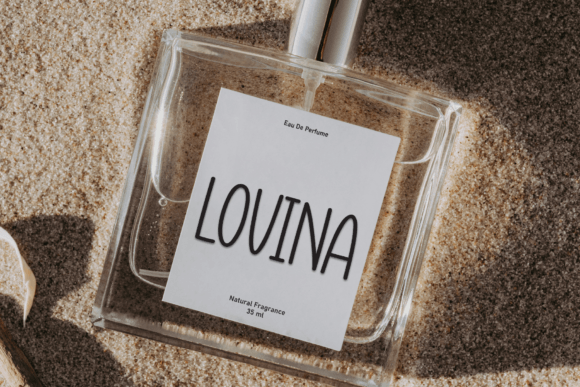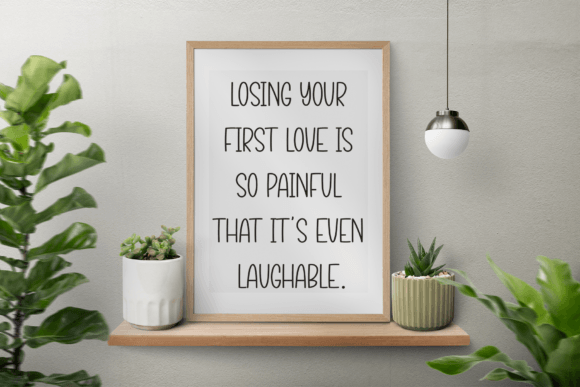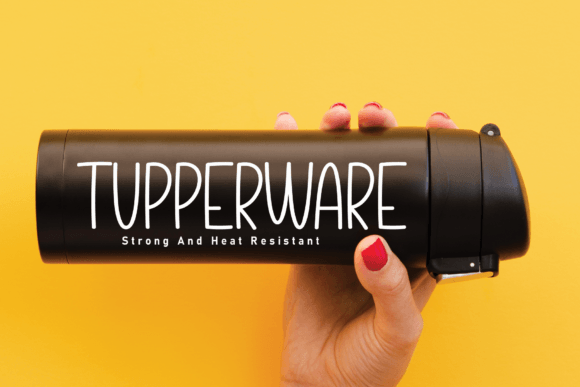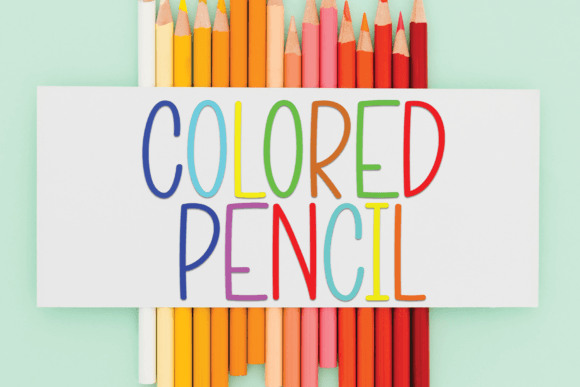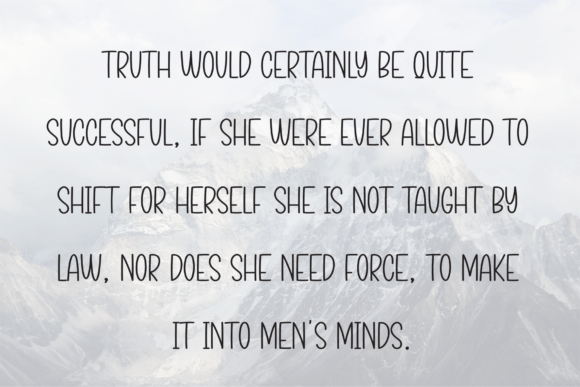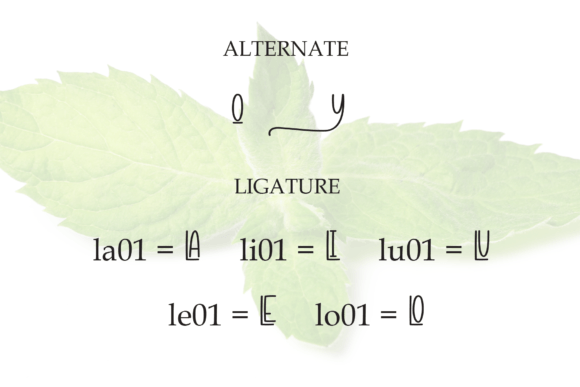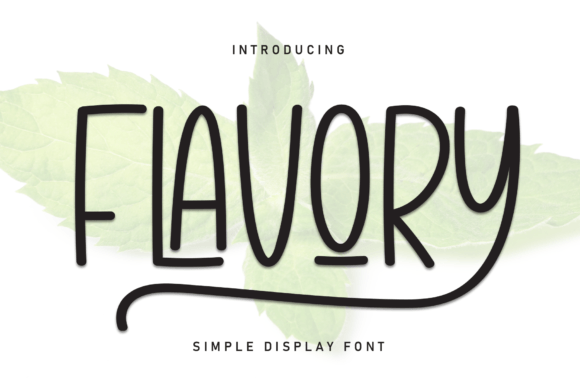
Introducing Flavory Font: The Timeless Handwritten Font for Stunning Designs
Are you a designer or crafter looking for a font that can add a touch of elegance and sophistication to your creations? Look no further than Flavory Font, a lovely and timeless handwritten font that is perfect for creating eye-catching logos, branding, and quotes.
The Unique Charm of Flavory Font
Flavory Font is a beautifully crafted handwritten font that boasts a unique and beautiful touch. Every letter has been carefully designed to ensure that it stands out from the crowd, making it the perfect choice for designers who want to create stunning and memorable designs. Whether you’re working on a logo, branding project, or quote, Flavory Font is sure to bring your design to life.
Why Choose Flavory Font?
So, why should you choose Flavory Font for your design projects? Here are just a few reasons:
- Timeless appeal: Flavory Font has a timeless quality that ensures it will never go out of style. Its classic handwritten look is perfect for creating designs that are both modern and sophisticated.
- Unique lettering: Every letter in Flavory Font has been carefully crafted to ensure that it has a unique and beautiful touch. This attention to detail makes it perfect for creating eye-catching logos, branding, and quotes.
- Versatility: Flavory Font is a versatile font that can be used for a wide range of design projects, from logos and branding to quotes and social media graphics.
Flavory Font is perfect for designers and crafters who want to create stunning and memorable designs. Its unique and beautiful lettering makes it ideal for:
- Logo design: Flavory Font is perfect for creating eye-catching logos that will help your brand stand out from the crowd.
- Branding: Use Flavory Font to create a consistent brand identity that reflects your values and style.
- Quotes and social media graphics: Flavory Font is perfect for creating stunning quotes and social media graphics that will engage and inspire your audience.
Tips for Using Flavory Font
Here are a few tips for using Flavory Font in your design projects:
- Experiment with different colors: Flavory Font looks great in a wide range of colors, so don’t be afraid to experiment and find the perfect color for your design.
- Play with font sizes: Flavory Font can be used at a wide range of font sizes, from large headings to small body text.
- Combine with other fonts: Flavory Font can be paired with other fonts to create a unique and eye-catching design.
Flavory Font is a timeless handwritten font that is perfect for designers and crafters who want to create stunning and memorable designs. Its unique and beautiful lettering makes it ideal for logos, branding, quotes, and social media graphics. With its ease of use, versatility, and timeless appeal, Flavory Font is a must-have font for any designer or crafter looking to take their designs to the next level.